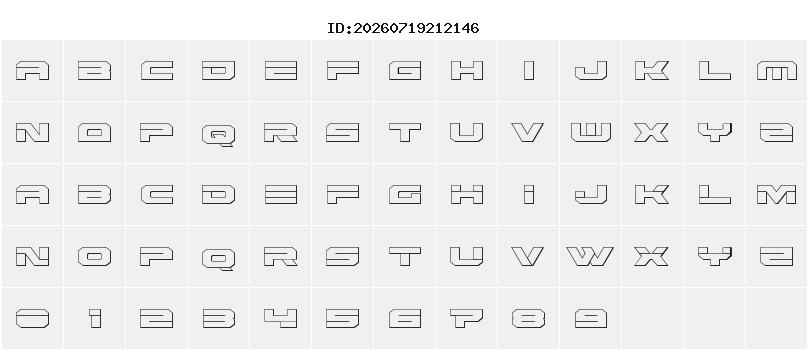
Eridanus 3D Preview
• Font Name: Eridanus 3D
About Eridanus 3D.ttf
Eridanus 3D.ttf is a modern, elegant sans-serif font designed for ultimate readability and visual harmony. Perfect for branding, headlines, web design, and print materials.